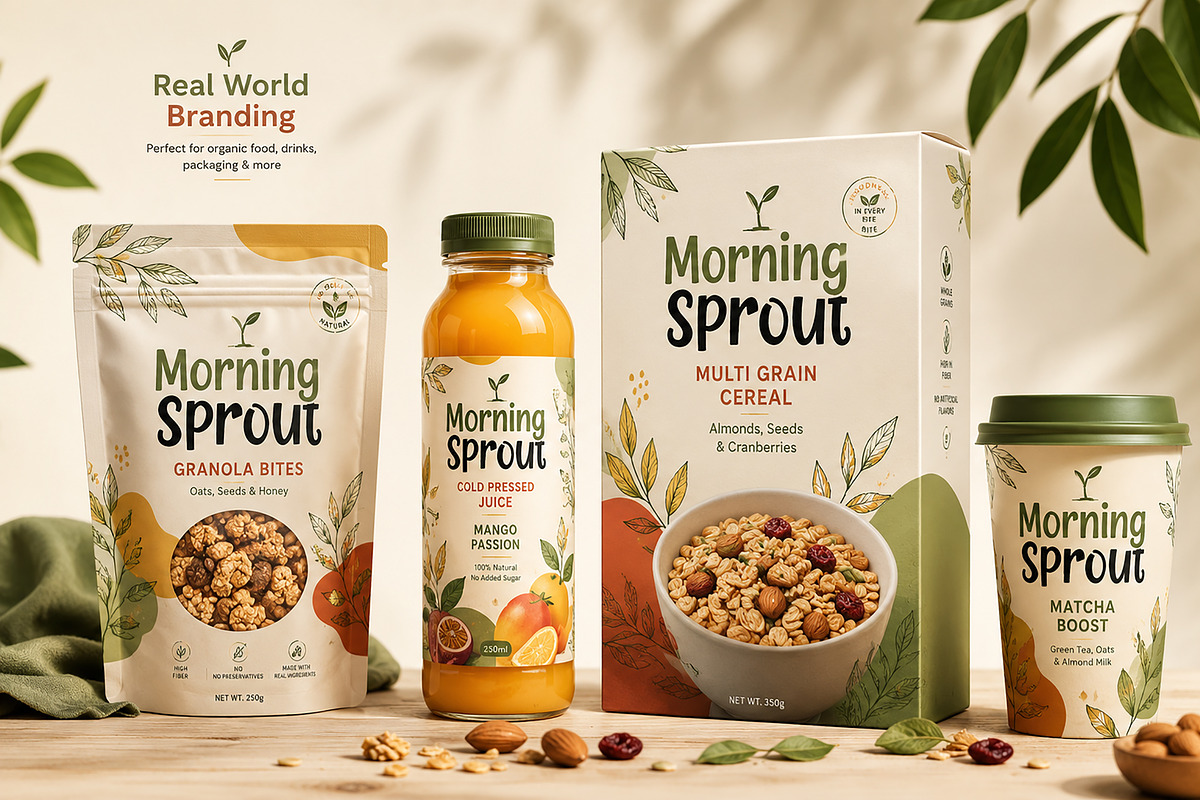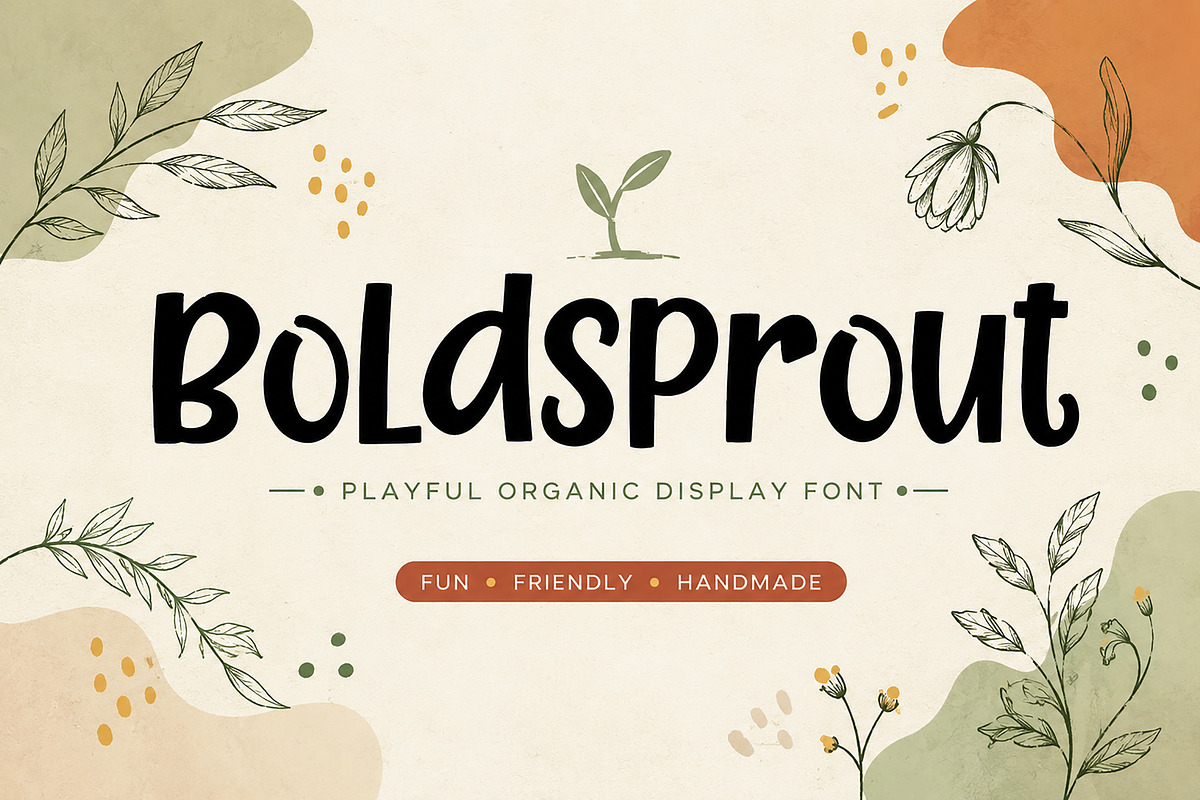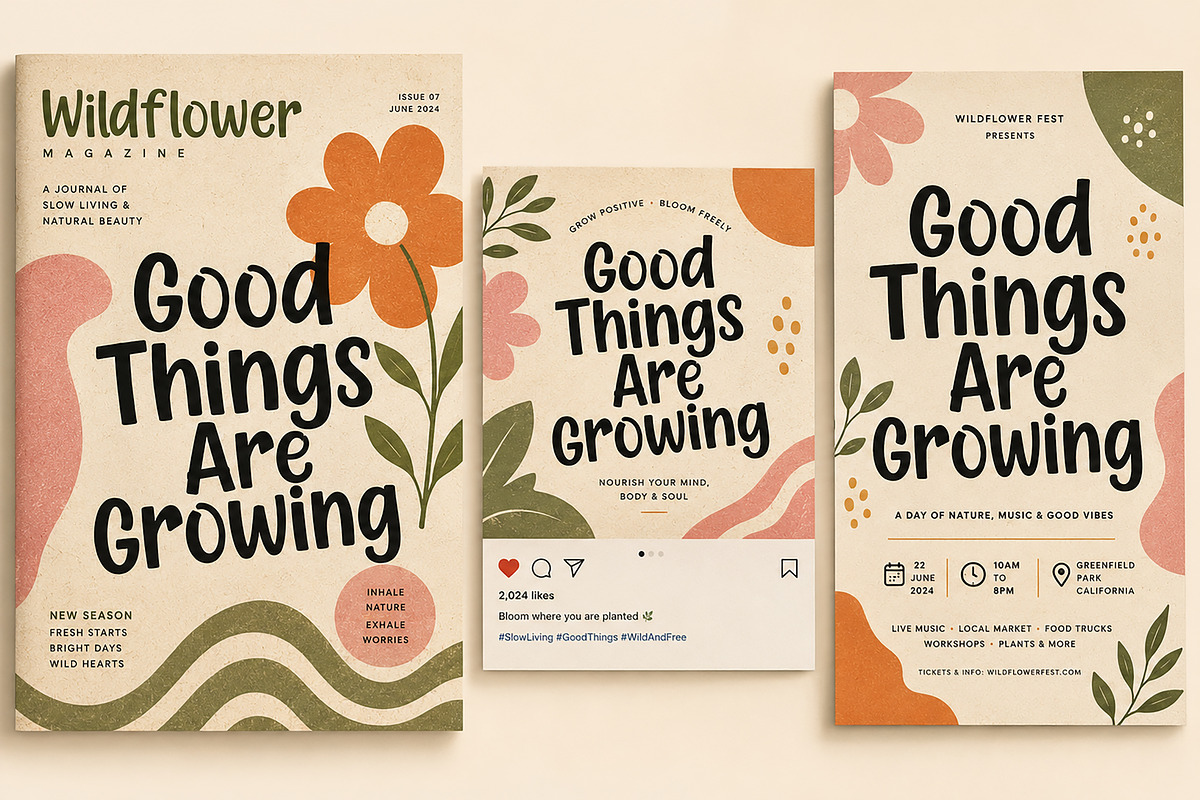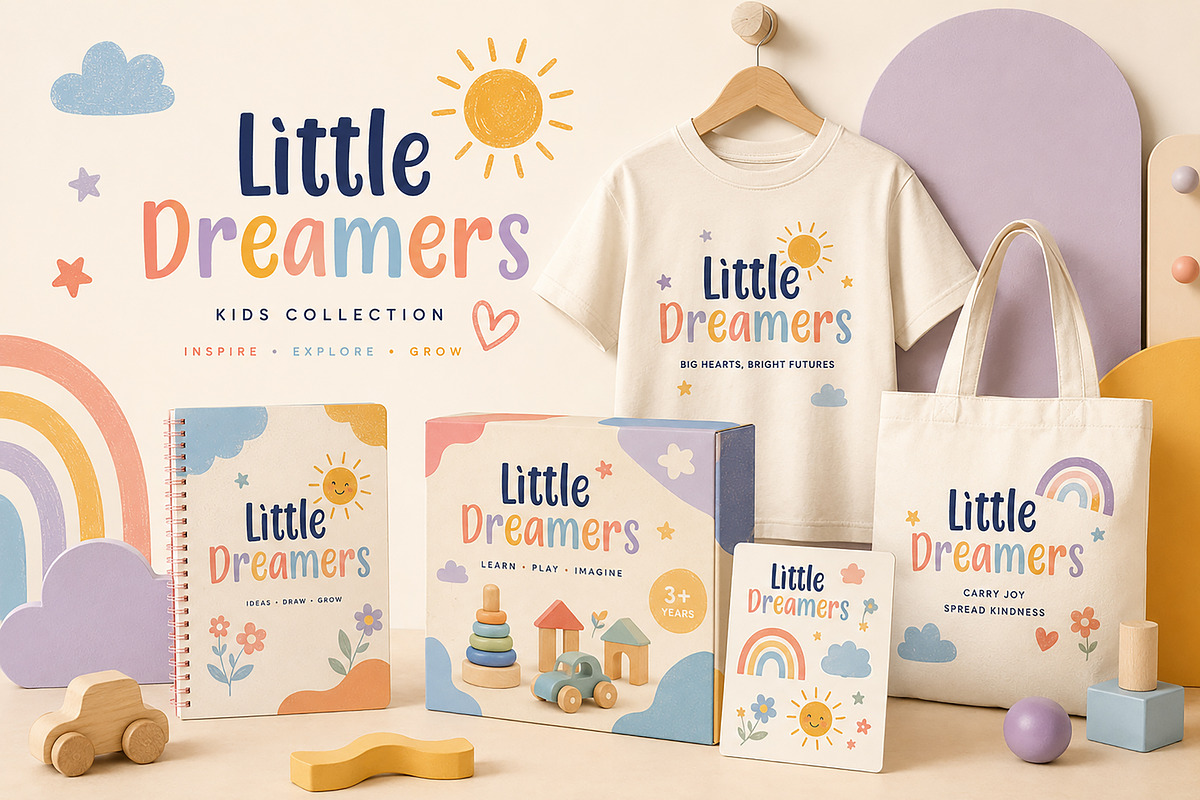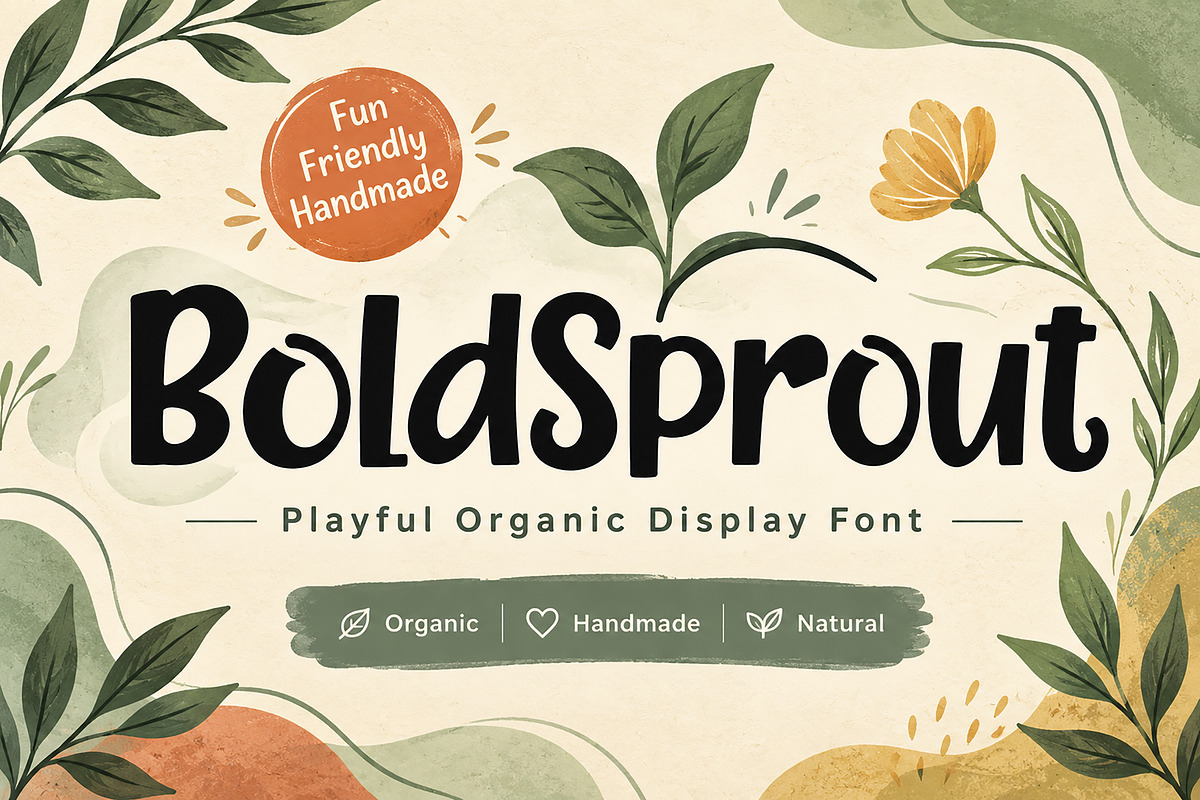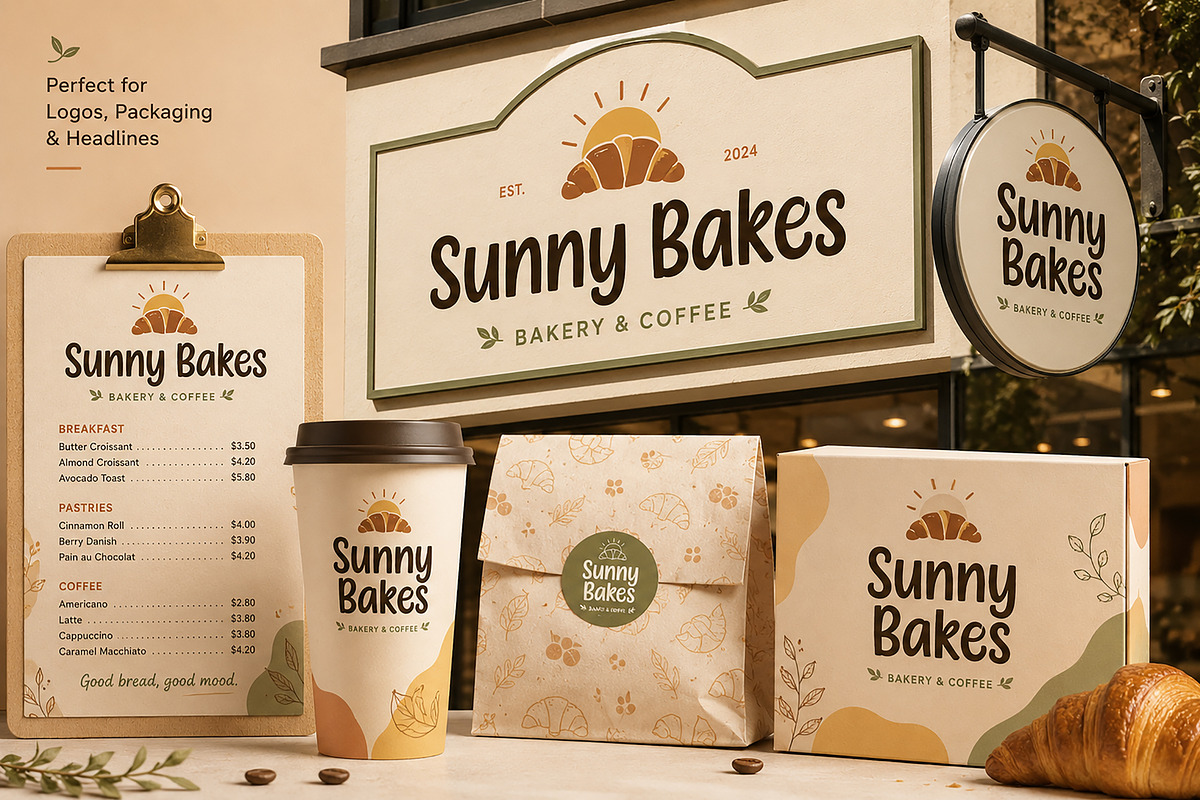
BoldSprout – Organic Display Font
BoldSprout – Playful Organic Display Font
Bring a fresh, cheerful personality to your creative projects with BoldSprout, a bold handcrafted display font designed for modern branding. Inspired by organic shapes and playful lettering, BoldSprout combines soft curves with a strong presence, making it perfect for eye-catching headlines, logos, and packaging.
Whether you're designing for cafés, bakeries, organic products, children's brands, or lifestyle businesses, BoldSprout delivers a warm, friendly, and memorable look that instantly grabs attention.
Its unique handcrafted style makes every word feel natural, creative, and full of character while remaining clean and highly readable.
Organic Food Packaging
Café & Bakery Branding
Coffee Shops
Children's Brands
Toy Packaging
Product Labels
T-Shirt Designs
Tote Bags
Stickers
Posters
Editorial Headlines
Magazine Covers
Greeting Cards
Website Headers
Creative Advertising
Lifestyle Branding
Handmade Product Packaging
Modern Display Typography
Why Choose BoldSprout?
Bold and eye-catching
Playful handcrafted style
Modern organic aesthetic
Perfect for branding and packaging
Clean, premium appearance
Ideal for both print and digital projects